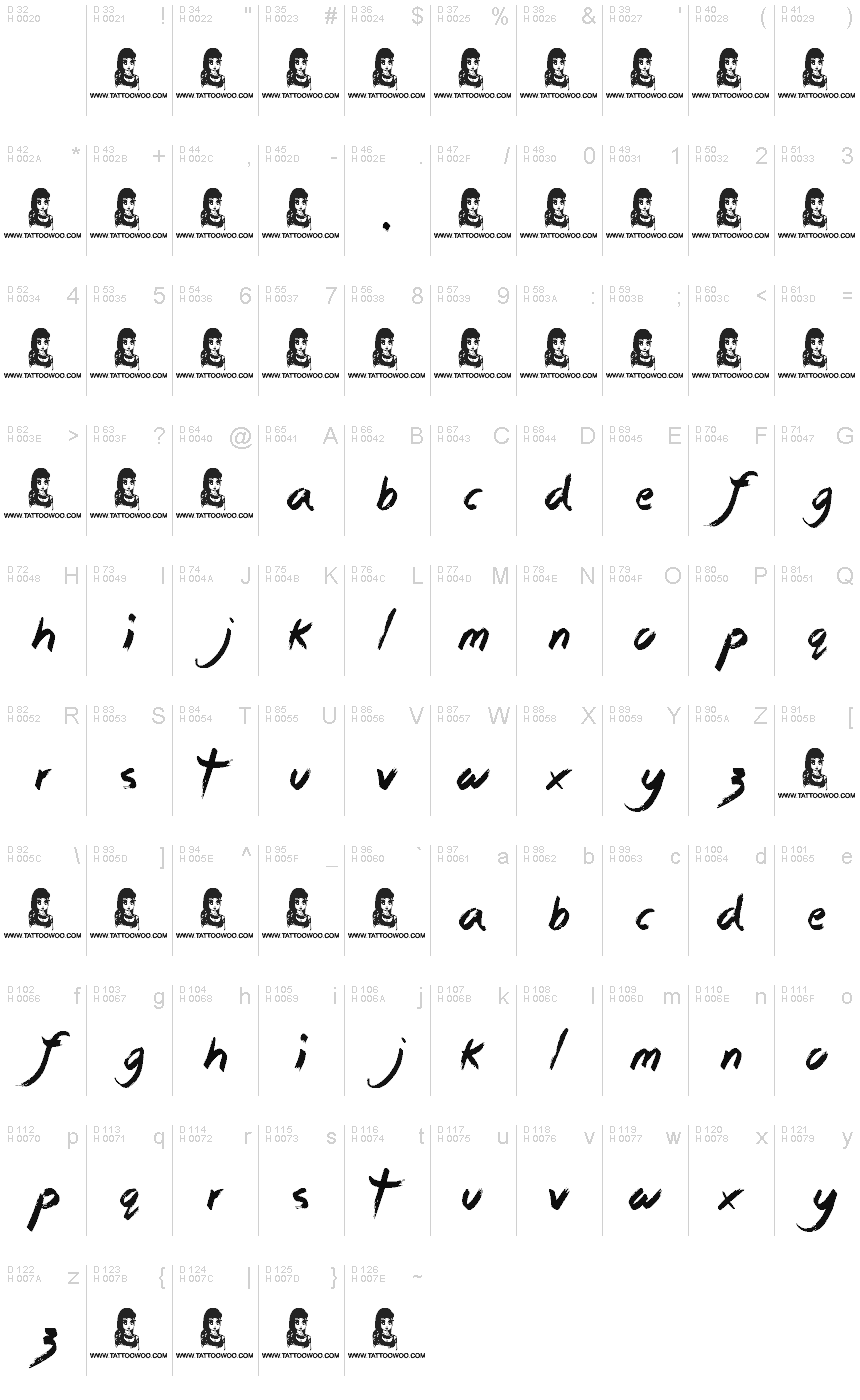
Sticky Things
Sticky Things, a vivacious brush style font designed by TattooWoo.com, embodies the raw energy of hand-painted signage and the edgy aesthetic of street art. With its deliberately irregular strokes and splatters, Sticky Things exudes a sense of spontaneity and expressive freedom that is perfect for designs requiring a personal touch or an injection of vitality.
Each character in the Sticky Things typeface boasts an individualistic design that captures the essence of ink bristles leaving their mark with unrestrained enthusiasm. The font's aesthetic appeal lies in its ability to convey movement and emotion, making it an excellent choice for projects that aim to stand out with a bold statement.
The versatility of Sticky Things is evident in its potential applications. It is well-suited for branding projects looking for a distinctive edge, eye-catching promotional materials, evocative poster designs, or any creative endeavor that benefits from an informal yet impactful typeface. The raw charm of this brush-style font ensures that it can create compelling visuals across various mediums while maintaining readability and impact.